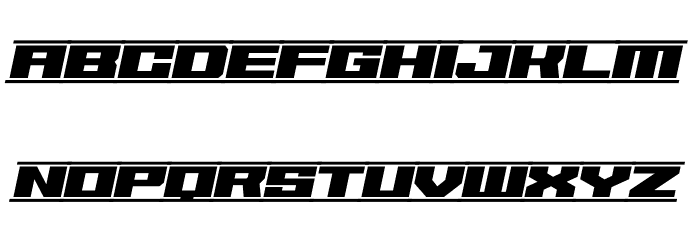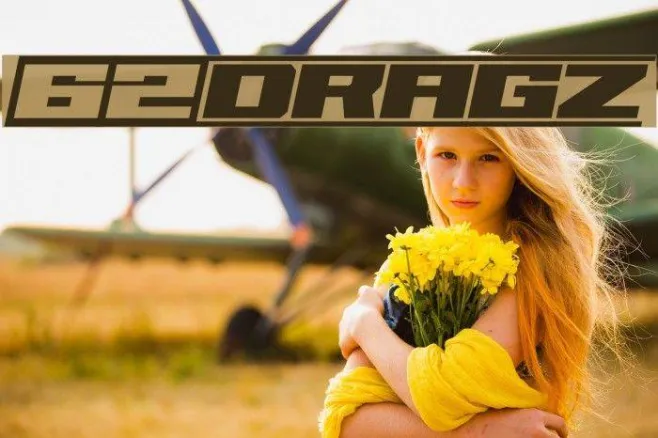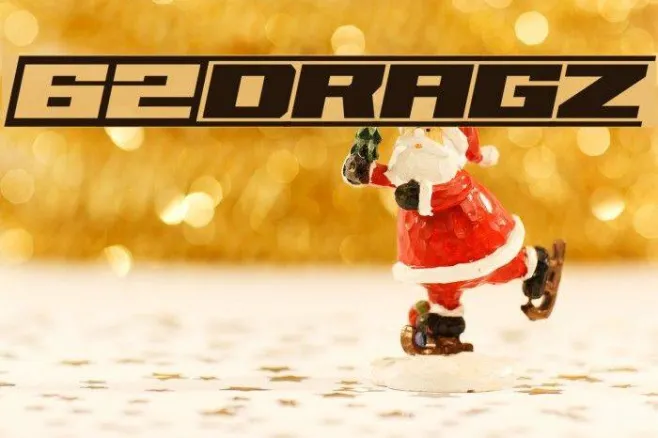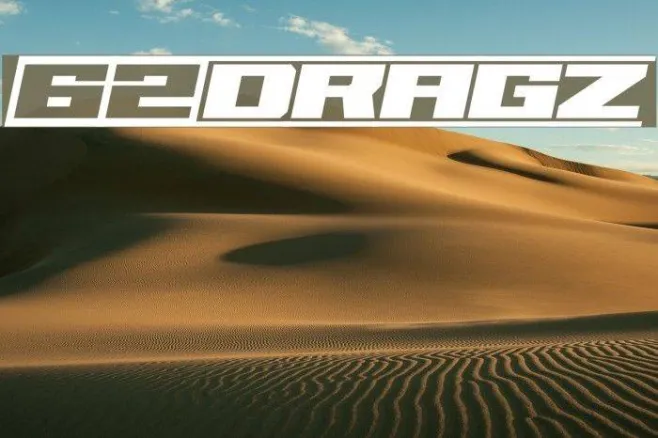
62DRAGZ Font
This font features a bold, geometric design with a strong, industrial feel. The characters are constructed with thick, angular lines and sharp edges, giving it a futuristic and dynamic appearance. The uppercase letters are particularly striking, with a consistent height and width that create a uniform look. The numbers follow the same style, maintaining the bold and angular aesthetic. This font is highly legible and makes a strong visual impact, suitable for projects that require a modern and assertive typeface.
A bold, geometric font with an industrial, futuristic style.
- Proposed Projects: Ideal for use in branding, posters, and any design that requires a modern, impactful typeface.